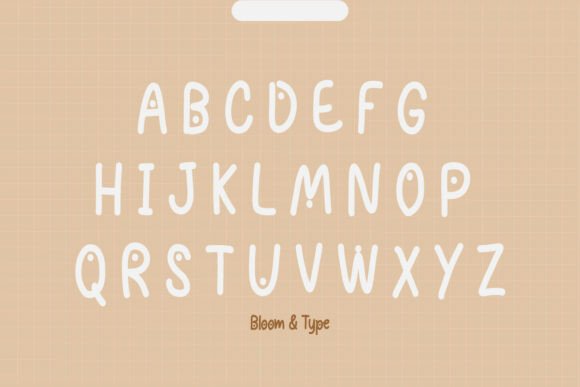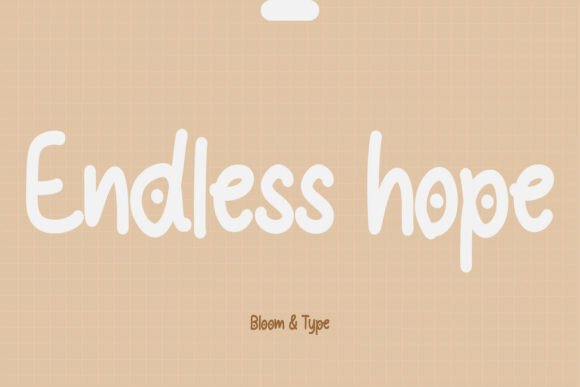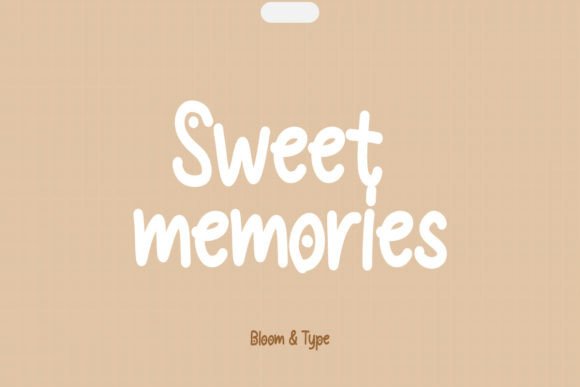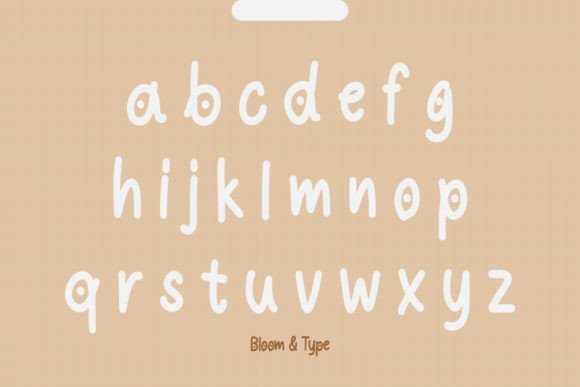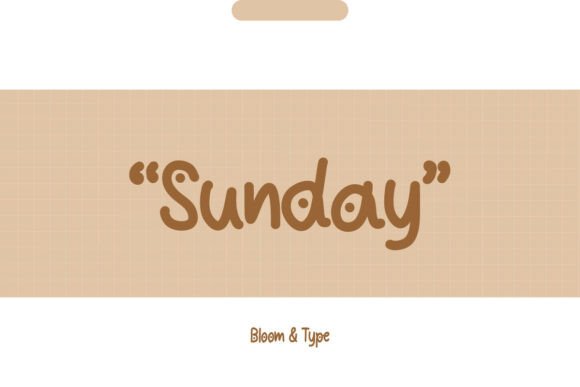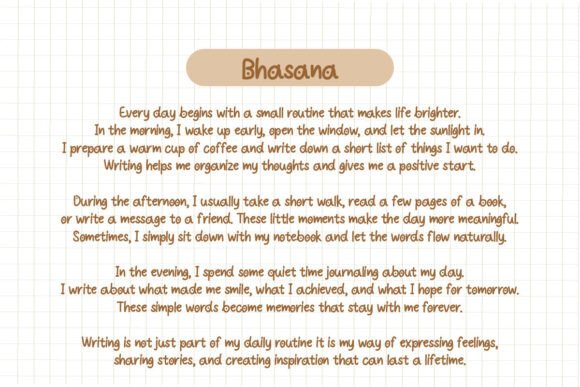
The Perfect Handwritten Touch: Discovering Bhasana Font
Remember the feeling of scribbling down a handwritten note to a loved one? The way the pen glides across the paper, leaving behind a trail of expressive curves and loops? It’s this exact feeling that designers strive to capture in their work, and that’s where Bhasana Font comes in.
Bhasana Font is a delightful, handwritten style that combines playful curves with a soft, rounded structure. Its friendly and slightly bouncy letterforms create a warm, cheerful look that feels natural and easygoing. Whether you’re creating branding materials, social media graphics, or product packaging, Bhasana Font is the perfect addition to bring a personal and expressive touch to your designs.
As a designer, you’ll love Bhasana Font for its versatility and ease of use. With its smooth strokes and casual handwritten flow, it’s a valuable asset to have in your toolkit. So why not give Bhasana Font a try and see how it can elevate your creative projects?
Bhasana Font Key Features
- Font Family: Bhasana is a sans-serif font family, offering a clean and modern look.
- Unique Characteristics: Bhasana features a unique blend of modern and traditional elements, with a distinctive x-height and a range of stylistic alternates.
Bhasana Font Review
At first glance, Bhasana Font is an elegant and sophisticated font that could elevate any design project ✨. Its unique blend of traditional and modern elements makes it a standout choice for designers looking for something distinct. The font’s clean lines and balanced proportions create a sense of harmony and stability, making it perfect for use in headlines, titles, and body text.
Pros:
- ✨ Elegant and sophisticated design
- ✨ Unique blend of traditional and modern elements
- ✨ Clean lines and balanced proportions
- ✨ Perfect for use in headlines, titles, and body text
However, there are a few limitations to consider ⚠️. The font may not be suitable for use in very small sizes, as the letters can become difficult to read. Additionally, the font’s unique design may not be to everyone’s taste, and some designers may find it too ornate or distracting.
Cons:
- ⚠️ May not be suitable for use in very small sizes
- ⚠️ Unique design may not appeal to all designers
- ⚠️ Can be too ornate or distracting for some projects
Overall, Bhasana Font is a solid choice for designers looking for a sophisticated and elegant font. While it may have some limitations, its unique design and clean lines make it a versatile and effective choice for a variety of projects.
The Bhasana Font is ideal for use in:
1. Headings and titles to add a touch of elegance and sophistication.
2. Body text to create a unique and memorable reading experience.
3. Logos and branding to establish a strong visual identity.